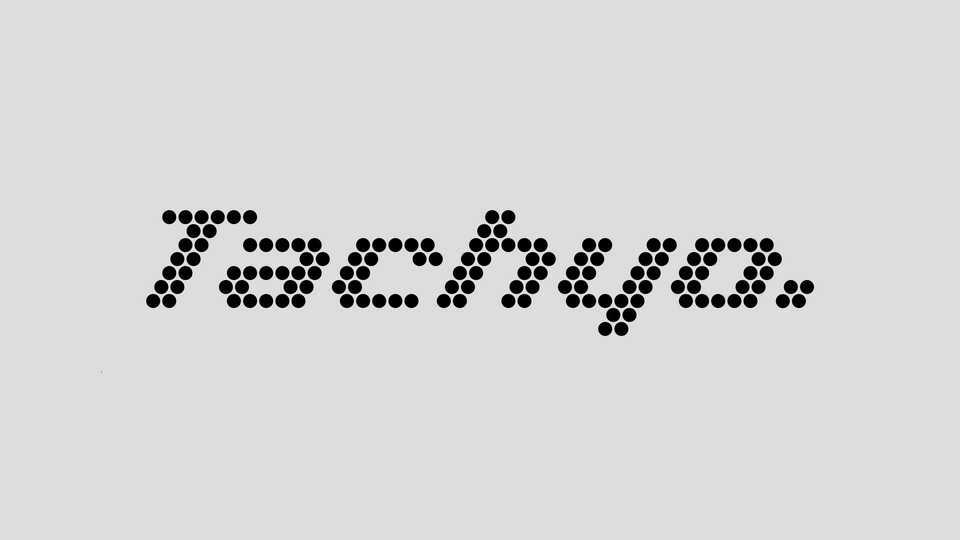
Download Tachyo font, a display typeface based on a hexagon grid of dots, taking cues from matrix display fonts and inspired by perforated sheet metal.
Designer: Ensix